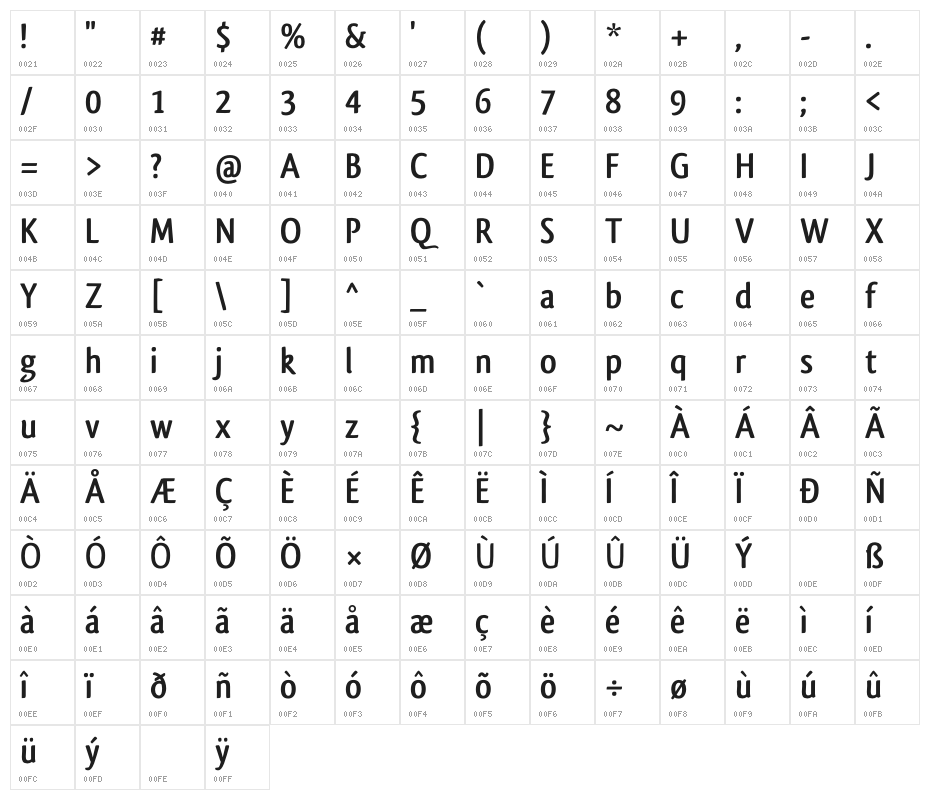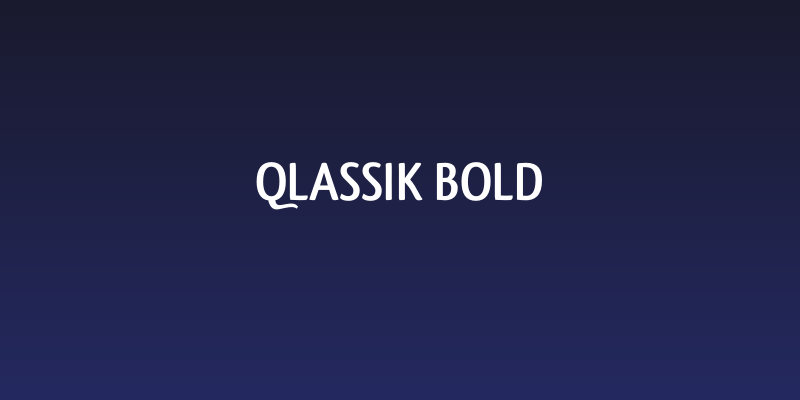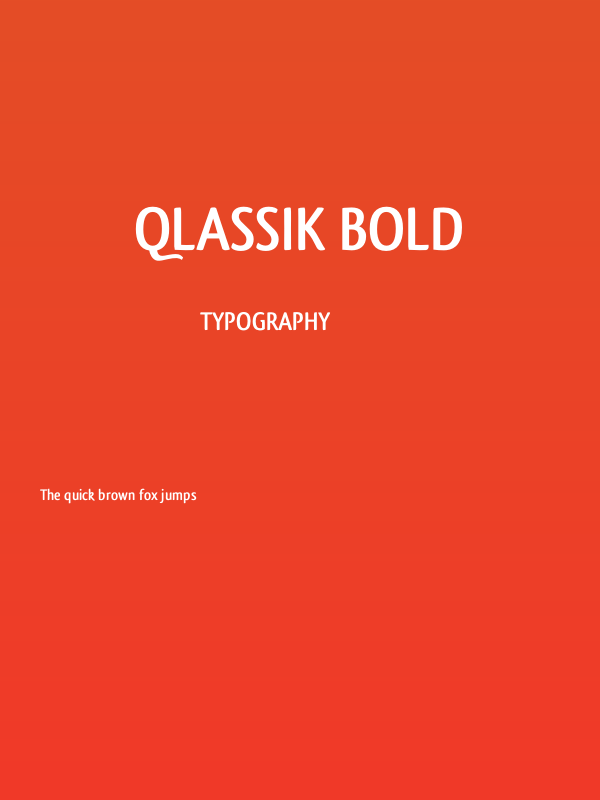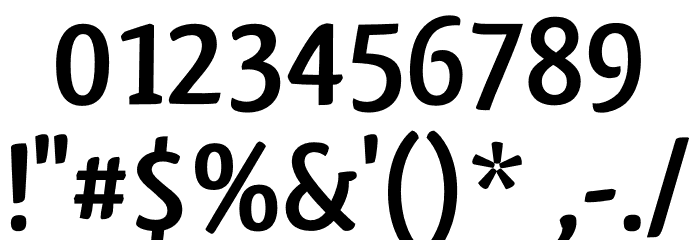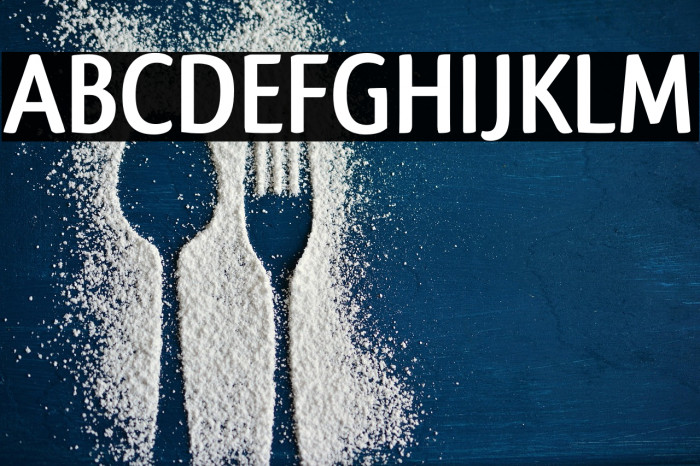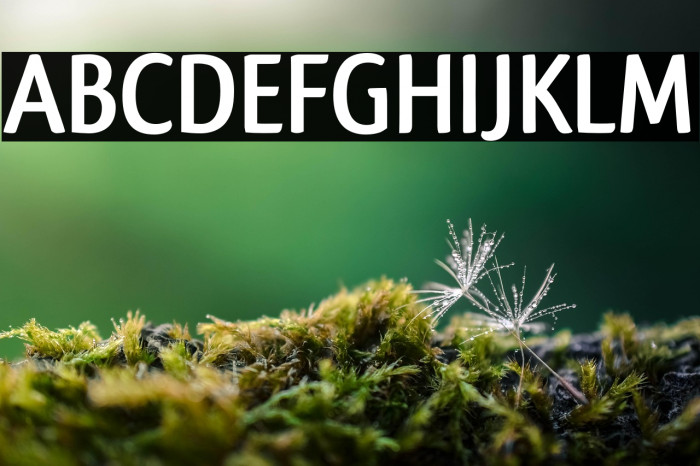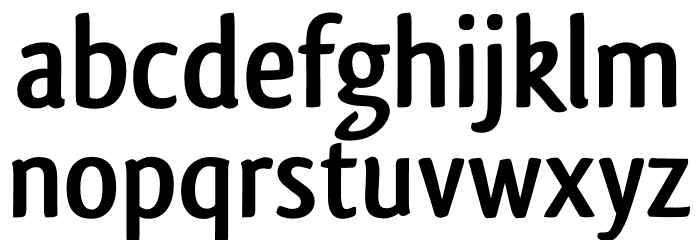
Qlassik Bold Font
Qlassik Bold Description
This font features a bold and modern sans-serif style with clean lines and a slightly rounded appearance. The uppercase letters are uniform in height, providing a strong and cohesive look. The lowercase letters maintain a consistent style, with some characters like 'g' and 'y' having distinctive tails that add a touch of uniqueness. The numerals are clear and easy to read, making them suitable for various applications. Special characters are well-designed, maintaining the overall aesthetic of the font. The font's bold weight and modern style make it versatile for both digital and print media.